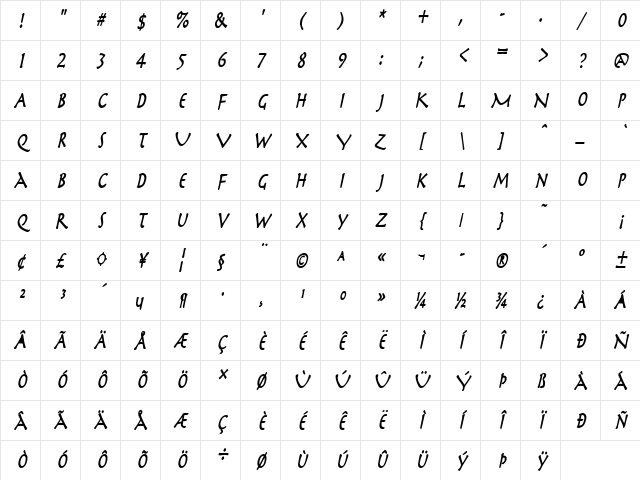
Mythology Thin BoldItalic
Complete Mythology Thin BoldItalic glyph index. Displaying only characters natively supported by Mythology Thin BoldItalic font.
Design Context for Mythology Thin
Mythology Thin is a composed and adaptable typeface that performs quietly and consistently across a wide range of design contexts. The slanted form adds forward momentum and visual energy. Its bold stroke weight gives it real presence on the page.